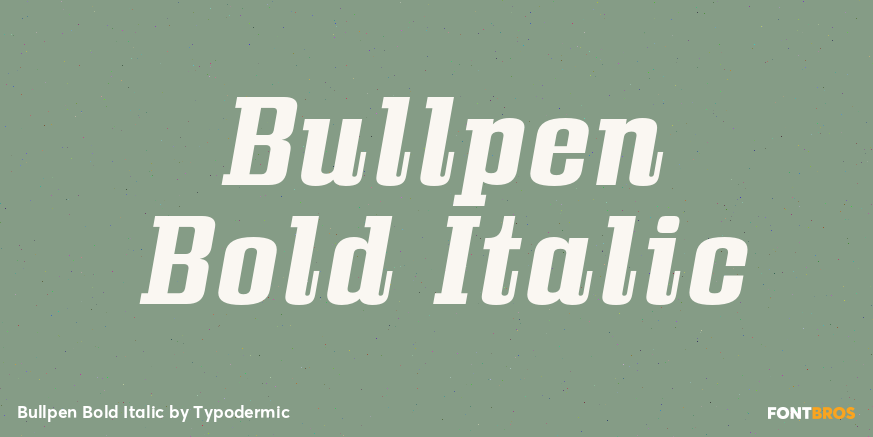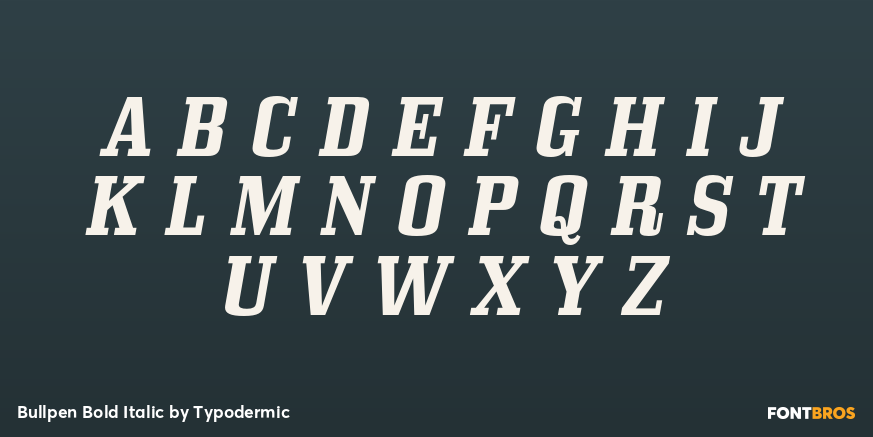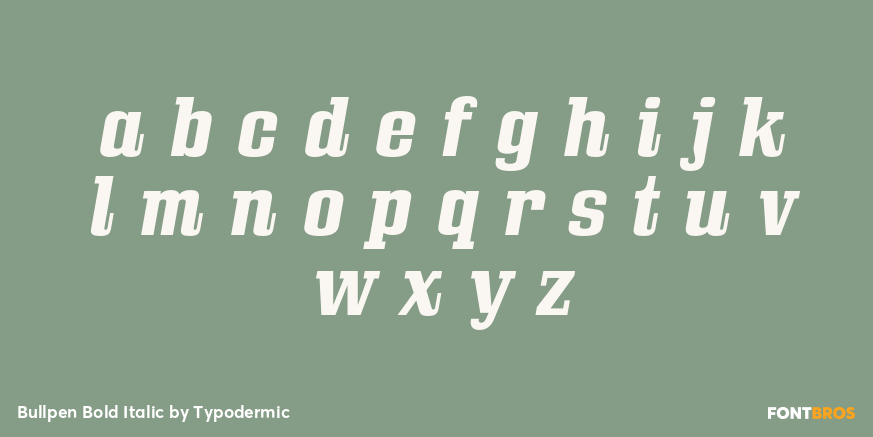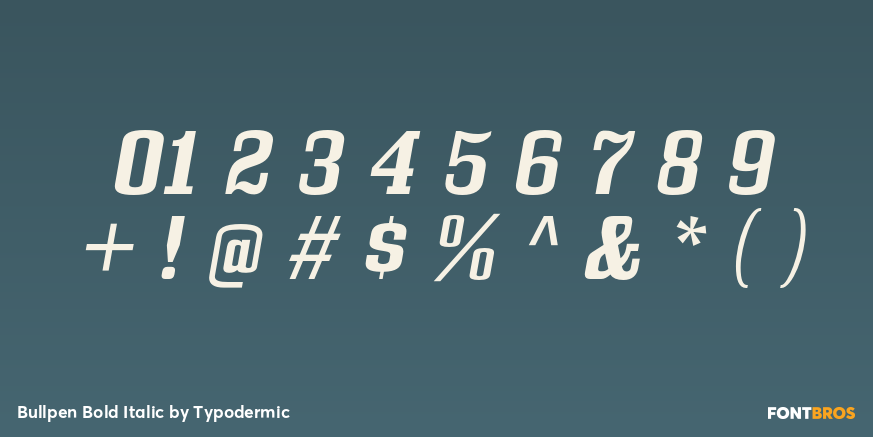
Bullpen Bold Italic
A strong slab serif can establish a team or equipment brand quickly. The trouble begins when that identity has to do quieter work. Player introductions become hospitality signage; a machine badge becomes a technical presentation; game-day graphics have to coexist with museums, lounges, training facilities and sponsor events. Switching to a neutral sans solves the volume problem but often removes the character that made the identity recognizable. Bullpen keeps its square, mechanical voice from Hairline through Heavy, letting designers reduce the volume without changing personalities.